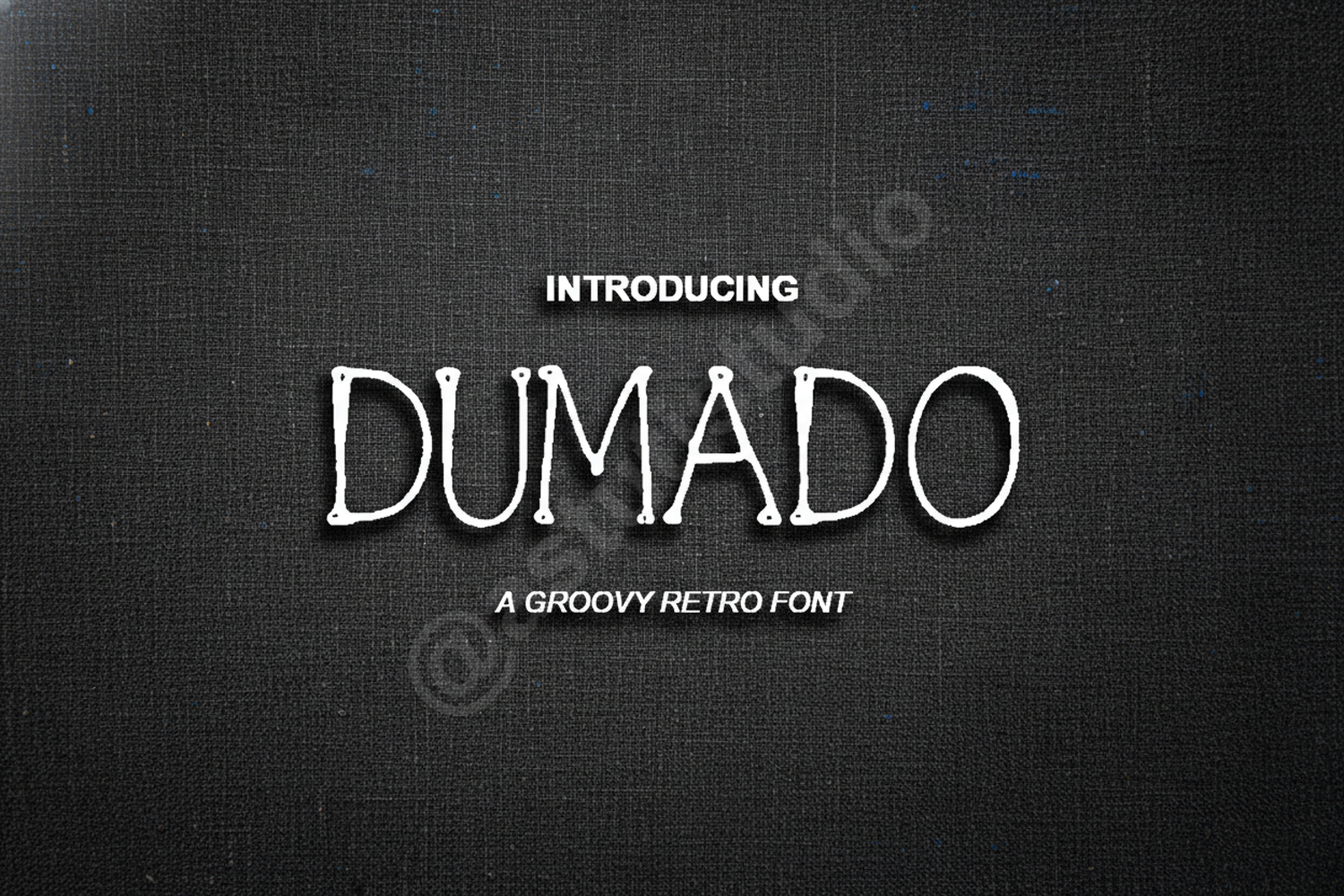
Dumado - Sophisticated Modern Serif Typeface
Dumado
Elevate your creative projects with Dumado, a premium serif typeface that seamlessly blends classic elegance with a modern aesthetic. Designed for designers who demand sophistication and precision, Dumado offers a clean yet distinctive look that ensures your typography stands out in a crowded market. Its balanced proportions and refined curves make it a versatile addition to any professional font library.
- Complete character set including uppercase, lowercase, numerals, and punctuation
- Luxury Branding and Visual Identity
- High-end Editorial and Magazine Layouts
- Elegant Wedding Stationery and Invitations
- Professional Logo Design
- Stylish Social Media Graphics and Quotes
- Premium Product Packaging and Labels